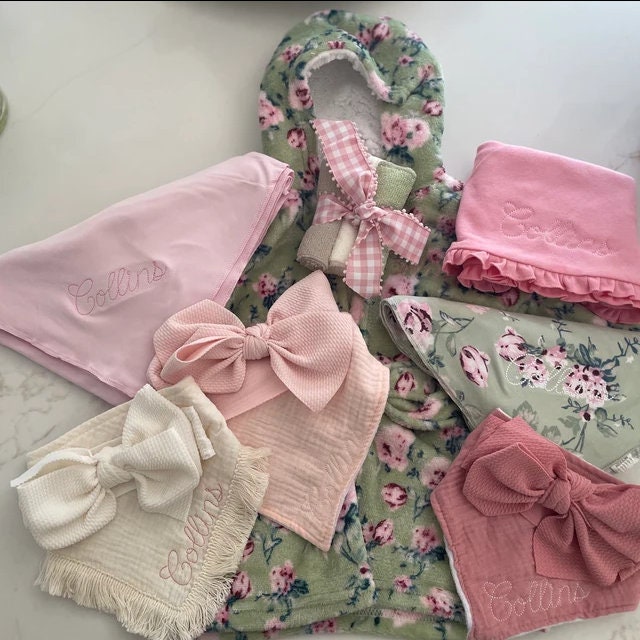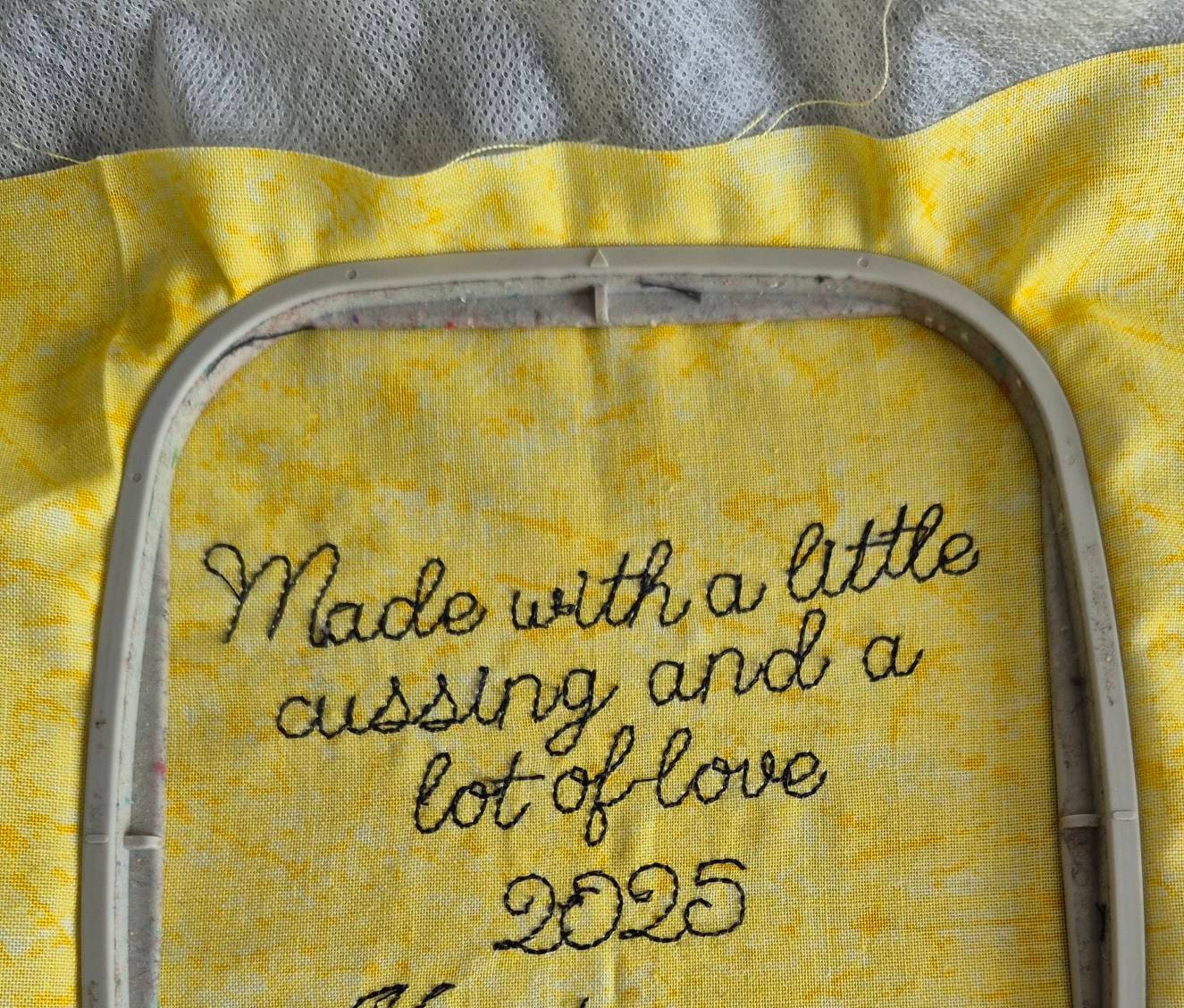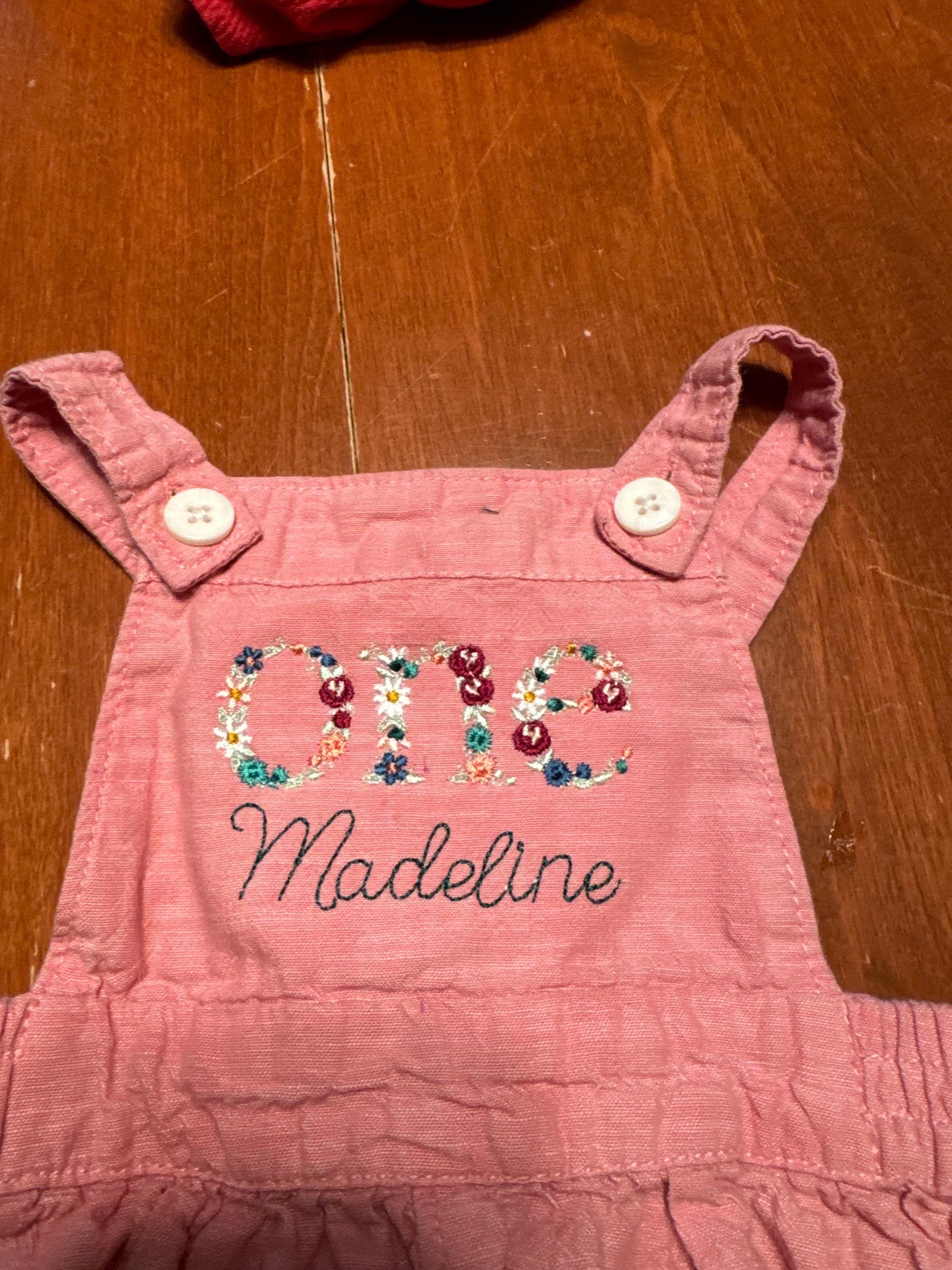
Quick light bean stitch Thin Line FONT machine embroidery designs assorted mini sizes, handwritten alphabet letters, kids name, BX included
0.5 inches
0.7 inches
0.9 inches
1.1 inches
2.1 inches
Whole alphabet: uppercase and lowercase letters, numbers and ampersand &